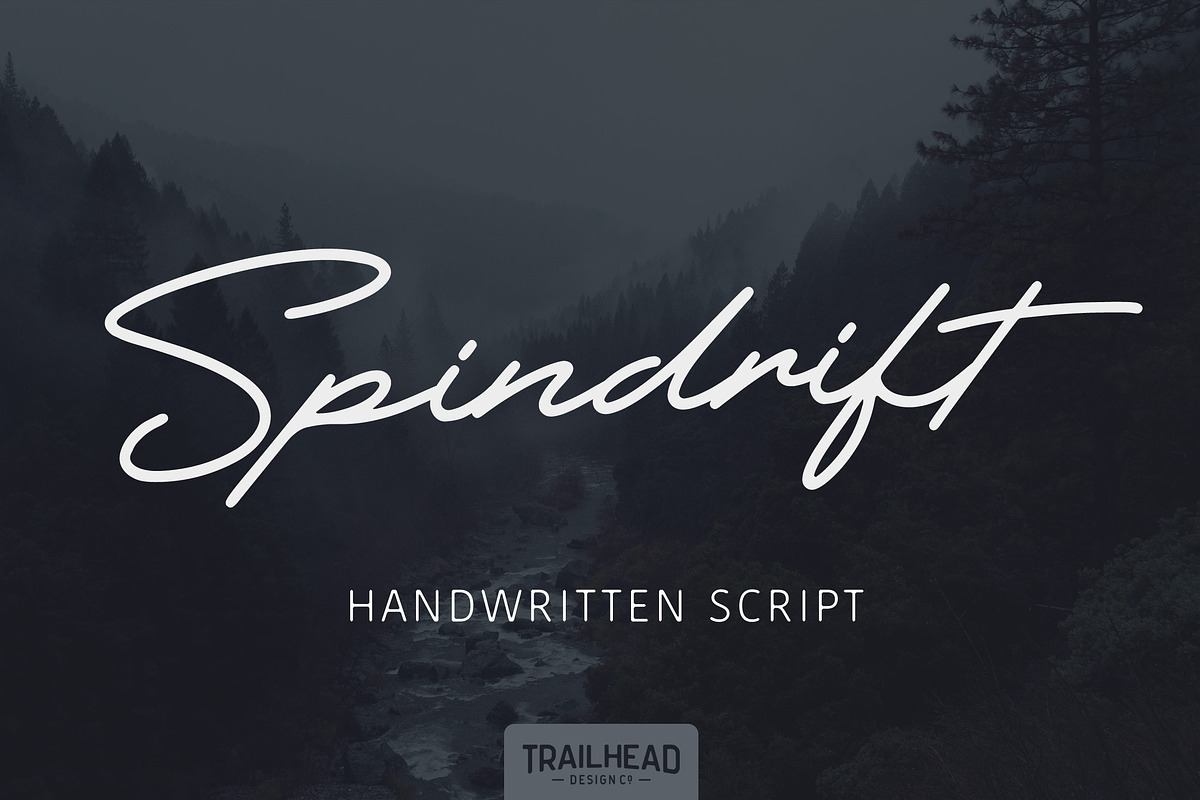
Spindrift Handwriting Script 4 Fonts Free Download is a delightful bundle of four handwritten script fonts designed to add personality and flow to your designs. Perfect for logos, invitations, greeting cards, branding, and social media graphics, this collection offers versatile styles for a variety of creative projects.
With its smooth, organic strokes and natural curves, Spindrift Handwriting Script 4 Fonts Free Download brings a warm, personal touch to your typography. Whether you're crafting a chic brand identity, designing heartfelt stationery, or creating stylish promotional materials, these fonts provide all the flexibility you need. Try them out in your next project to explore their beauty—then upgrade to a commercial license when you're ready to go live.